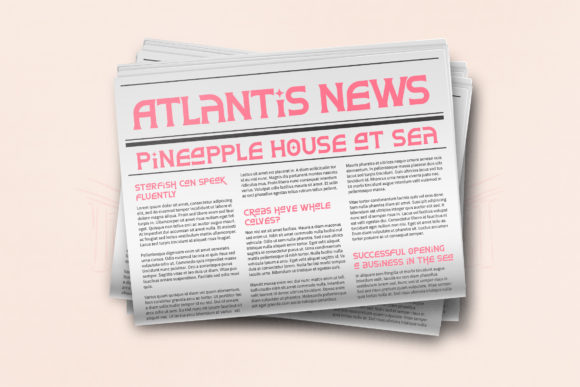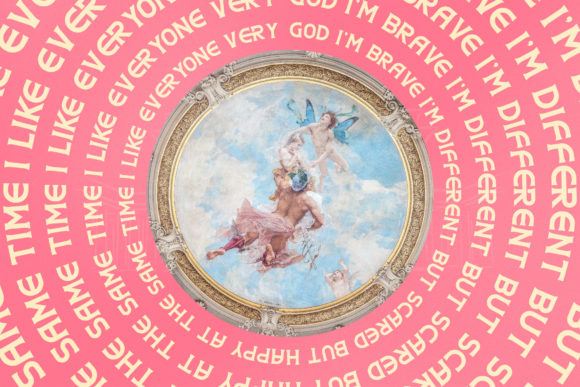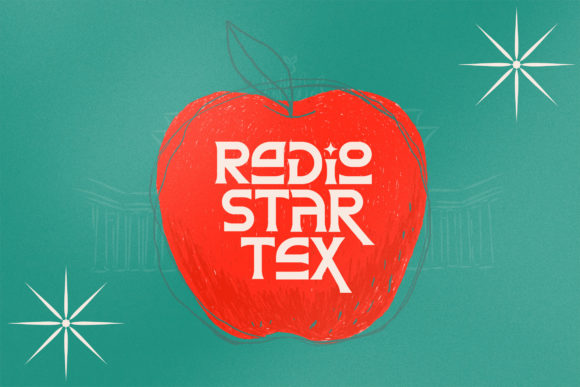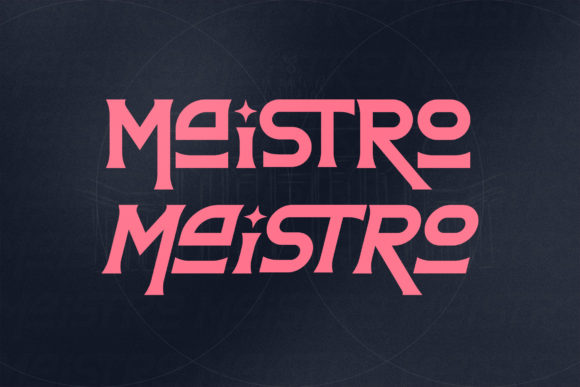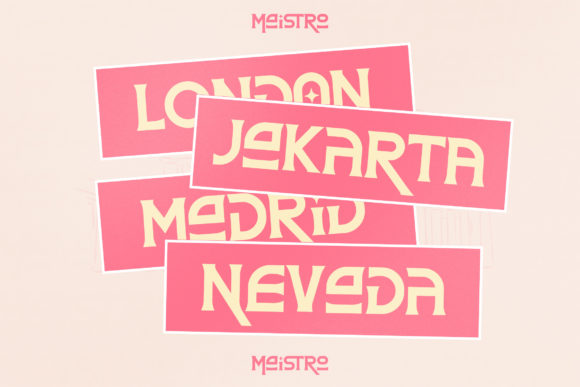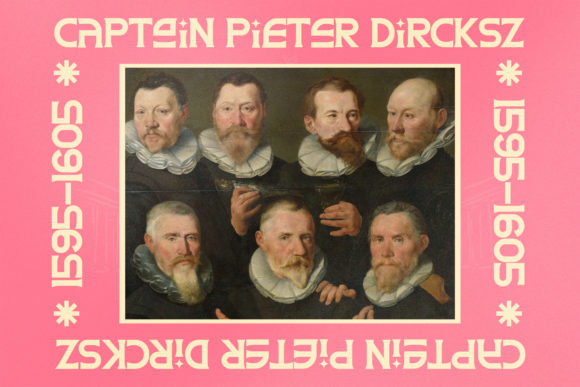
Introduction to Maistro Font
Do you ever find yourself scrolling through your favorite design inspiration boards, feeling the urge to create something truly unique and eye-catching? I know I do! There’s something about seeing a beautifully crafted design that sparks a fire within us, inspiring us to bring our creative visions to life. And that’s exactly what we’re going to talk about today – a fantastic addition to your design arsenal: the Maistro Font.
This cool and retro styled display font is more than just a pretty face – it’s a powerful tool that can elevate your creative projects to the next level. With its high-quality design and PUA encoding, you’ll have access to a wide range of glyphs and swashes that will give your designs a professional touch. Plus, it’s free to download, making it a valuable resource for designers on a budget.
Key Features of Maistro Font
- High-quality design: Maistro Font is a premium font designed for creative projects, offering a unique and elegant look.
- Large character set: Maistro Font includes a wide range of characters, including uppercase and lowercase letters, numbers, and special symbols.
- High-resolution design: The font is designed at a high resolution, making it suitable for use in large-scale designs, such as billboards and posters.
- Perfect for creative projects: Maistro Font is ideal for use in creative projects, including graphic design, typography, and digital art.
Honest Review: Maistro Font
I recently had the chance to work with the Maistro Font, and I must say it’s a great addition to my design resources. This free download is perfect for any creative project that requires a high-quality, elegant font.
- ✨ Clear and elegant design makes it perfect for titles and headings.
- ✨ High-quality design ensures that it looks great on any device or screen size.
One limitation of the Maistro Font is that it may not be as expressive as some other fonts. However, for most design projects, it’s more than sufficient.
Overall, I’m very impressed with the Maistro Font. It’s a great design resource that’s easy to use and produces high-quality results. If you’re looking for a reliable font for your creative project, I highly recommend giving it a try.
Tips for Getting the Most Out of Maistro Font
To get the most out of Maistro Font, experiment with different font sizes, colors, and combinations. Use the font’s transparent background to create unique and eye-catching designs. With practice, you’ll master the art of using Maistro Font to elevate your creative projects.
Maistro Font is perfect for creating social media graphics, presentations, and documents. Its high quality and versatility make it an excellent choice for designers, marketers, and creatives who want to take their projects to the next level.